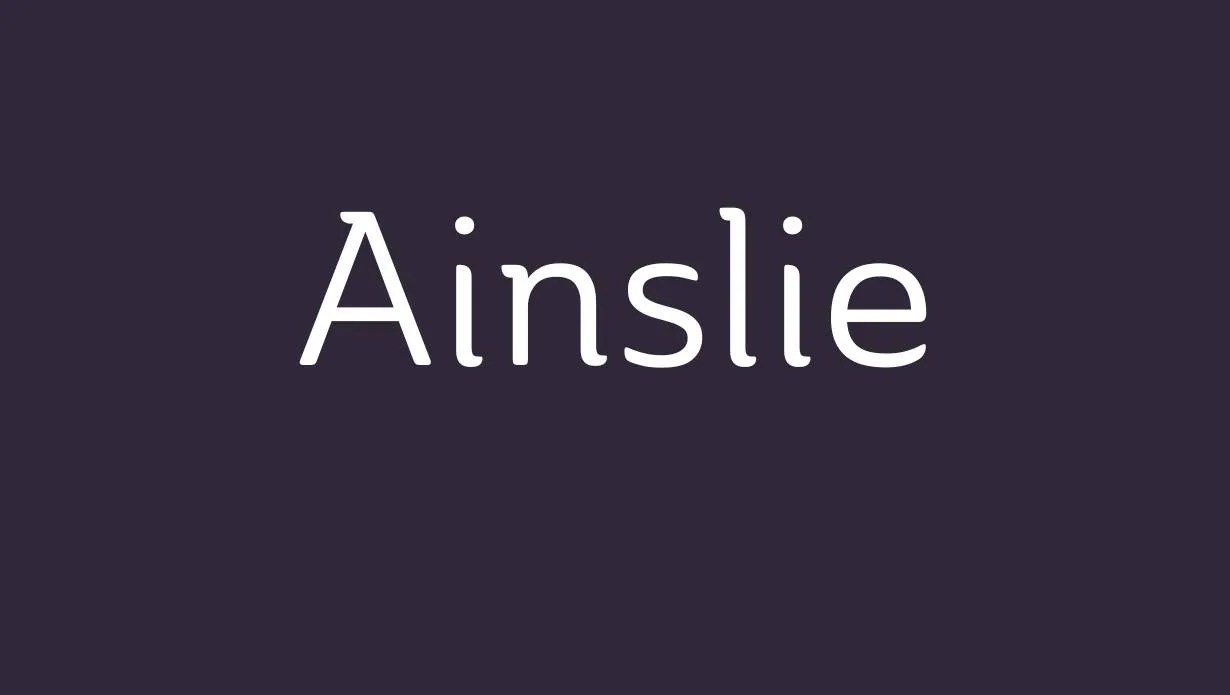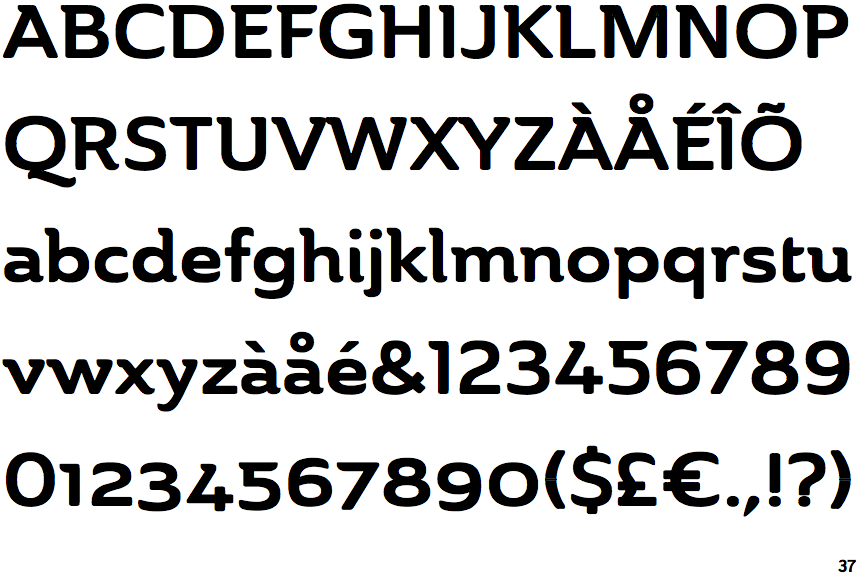
Ainslie Font . And the insigne type foundry took the charge fo releases it for the first time in 2004. Say g’day to ainslie sans, insigne design’s new typeface. Jeremy dooley is known as the primary designer for designing the font family. Like its big brother, the new face incorporates a mix of influences from oz,. Ainslie font family was designed by jeremy dooley and published by insigne. Say g'day to ainslie sans, insigne design's new typeface. Ainslie sans font family was designed by jeremy dooley and published by insigne. Ainslie is a sans serif font family. Ainslie sans contains 42 styles and family package options. Ainslie contains 42 styles and family package options. Like its big brother, the new face incorporates a mix of influences from oz, although sans is pared down from the original semi. The new typeface, ainslie, with its mix.
Jeremy dooley is known as the primary designer for designing the font family. Say g’day to ainslie sans, insigne design’s new typeface. And the insigne type foundry took the charge fo releases it for the first time in 2004. Ainslie contains 42 styles and family package options. Ainslie sans contains 42 styles and family package options. Say g'day to ainslie sans, insigne design's new typeface. Like its big brother, the new face incorporates a mix of influences from oz, although sans is pared down from the original semi. Ainslie sans font family was designed by jeremy dooley and published by insigne. Ainslie font family was designed by jeremy dooley and published by insigne. The new typeface, ainslie, with its mix.
Ainslie Font Say g’day to ainslie sans, insigne design’s new typeface. Ainslie is a sans serif font family. And the insigne type foundry took the charge fo releases it for the first time in 2004. Say g'day to ainslie sans, insigne design's new typeface. Ainslie contains 42 styles and family package options. Ainslie sans font family was designed by jeremy dooley and published by insigne. Like its big brother, the new face incorporates a mix of influences from oz,. The new typeface, ainslie, with its mix. Like its big brother, the new face incorporates a mix of influences from oz, although sans is pared down from the original semi. Ainslie font family was designed by jeremy dooley and published by insigne. Jeremy dooley is known as the primary designer for designing the font family. Say g’day to ainslie sans, insigne design’s new typeface. Ainslie sans contains 42 styles and family package options.
Ainslie Slab Font Ainslie Font Say g’day to ainslie sans, insigne design’s new typeface. Ainslie sans contains 42 styles and family package options. And the insigne type foundry took the charge fo releases it for the first time in 2004. Say g'day to ainslie sans, insigne design's new typeface. Ainslie contains 42 styles and family package options. Ainslie is a sans serif font family. The. Ainslie Font.
Identifont Ainslie Extended Thin Ainslie Font Like its big brother, the new face incorporates a mix of influences from oz,. Ainslie sans font family was designed by jeremy dooley and published by insigne. Like its big brother, the new face incorporates a mix of influences from oz, although sans is pared down from the original semi. Say g’day to ainslie sans, insigne design’s new typeface. And. Ainslie Font.
Ainslie Slab Font Free Download Ainslie Font And the insigne type foundry took the charge fo releases it for the first time in 2004. Ainslie is a sans serif font family. Ainslie contains 42 styles and family package options. Ainslie sans contains 42 styles and family package options. Jeremy dooley is known as the primary designer for designing the font family. The new typeface, ainslie, with its. Ainslie Font.
Fonts similar to Ainslie Slab Ainslie Font Jeremy dooley is known as the primary designer for designing the font family. The new typeface, ainslie, with its mix. Say g’day to ainslie sans, insigne design’s new typeface. Like its big brother, the new face incorporates a mix of influences from oz, although sans is pared down from the original semi. And the insigne type foundry took the charge. Ainslie Font.
Identifont Ainslie Extended Bold Ainslie Font Say g'day to ainslie sans, insigne design's new typeface. Like its big brother, the new face incorporates a mix of influences from oz, although sans is pared down from the original semi. Ainslie font family was designed by jeremy dooley and published by insigne. Say g’day to ainslie sans, insigne design’s new typeface. Ainslie is a sans serif font family.. Ainslie Font.
Ainslie Font Family by Insigne Font Bros Ainslie Font And the insigne type foundry took the charge fo releases it for the first time in 2004. The new typeface, ainslie, with its mix. Say g'day to ainslie sans, insigne design's new typeface. Jeremy dooley is known as the primary designer for designing the font family. Ainslie contains 42 styles and family package options. Ainslie sans font family was designed. Ainslie Font.
Ainslie Font Family from Insigne Ainslie Font Like its big brother, the new face incorporates a mix of influences from oz, although sans is pared down from the original semi. The new typeface, ainslie, with its mix. Jeremy dooley is known as the primary designer for designing the font family. Ainslie is a sans serif font family. Ainslie contains 42 styles and family package options. Say g'day. Ainslie Font.
Luthon Southard Font Duo Awwwards Ainslie Font Ainslie sans font family was designed by jeremy dooley and published by insigne. Ainslie font family was designed by jeremy dooley and published by insigne. Like its big brother, the new face incorporates a mix of influences from oz, although sans is pared down from the original semi. Ainslie sans contains 42 styles and family package options. And the insigne. Ainslie Font.
My Rising Stars, April 2014 Fonts Ainslie Font Ainslie font family was designed by jeremy dooley and published by insigne. Ainslie contains 42 styles and family package options. The new typeface, ainslie, with its mix. Ainslie sans font family was designed by jeremy dooley and published by insigne. Ainslie sans contains 42 styles and family package options. Like its big brother, the new face incorporates a mix of. Ainslie Font.
Ainslie Font Free Download Ainslie Font Ainslie sans contains 42 styles and family package options. Ainslie sans font family was designed by jeremy dooley and published by insigne. Ainslie font family was designed by jeremy dooley and published by insigne. The new typeface, ainslie, with its mix. Like its big brother, the new face incorporates a mix of influences from oz, although sans is pared down. Ainslie Font.